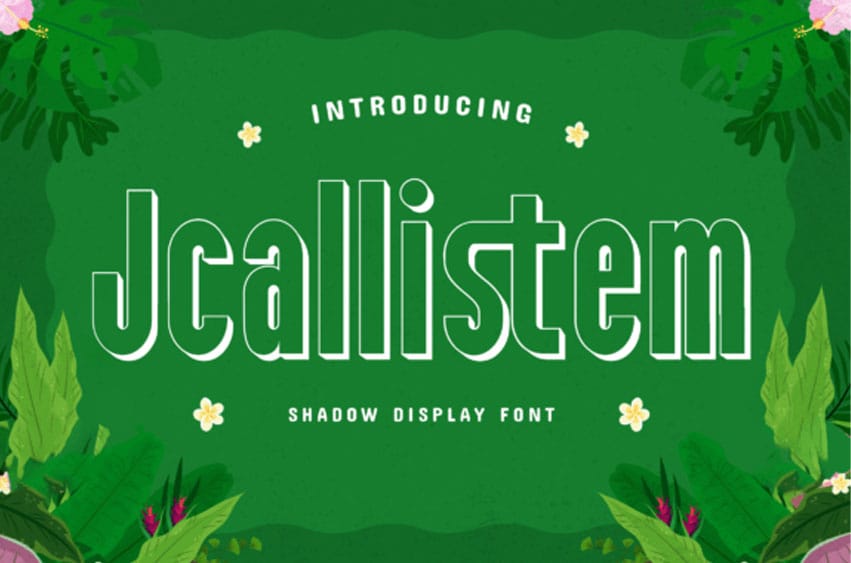
Jcallistem Font is a tropical-inspired display font featuring a bold condensed structure with inline shadow details. The letterforms are tall and clean, combined with a layered outline style that creates depth while maintaining strong readability.
Jcallistem works well for posters, event graphics, branding, packaging, and editorial layouts, especially for themes related to summer, nature, and tropical visuals.